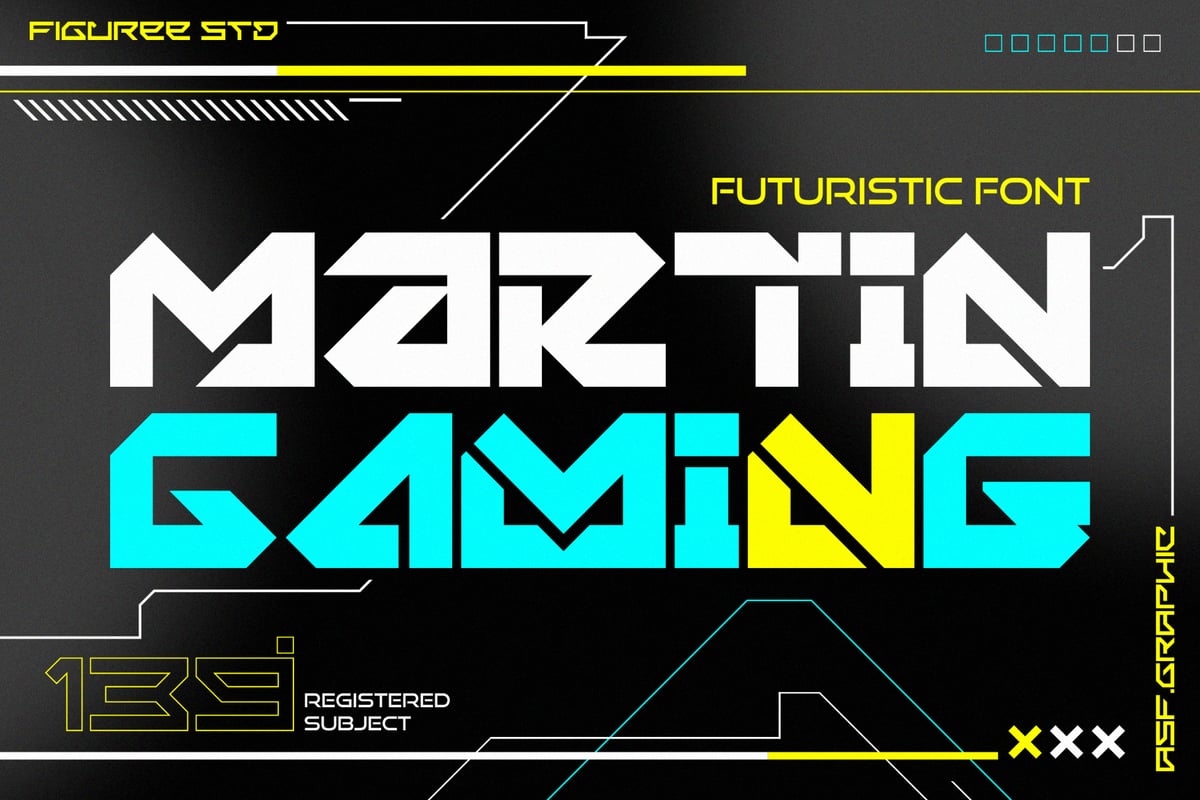
Martin Gaming Italic
Typography is at the core of modern digital branding, especially in industries like gaming and technology. Martin Gaming – Futuristic Techno Font is crafted for designers who want to create bold, high-tech visuals with a strong identity. This futuristic techno font delivers sharp geometry, digital-inspired forms, and a modern aesthetic that perfectly fits esports, gaming logos, and cutting-edge branding projects. This futuristic techno font is designed to capture the energy of the digital wor